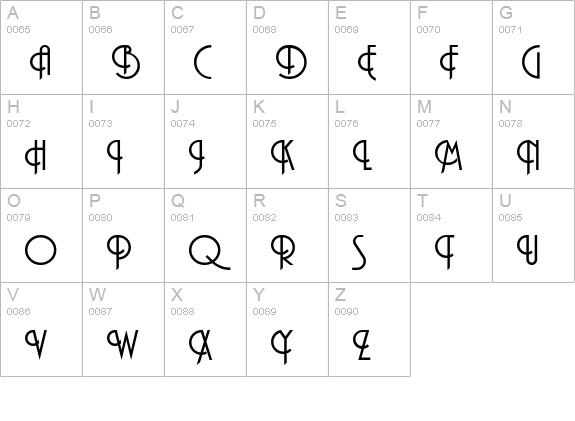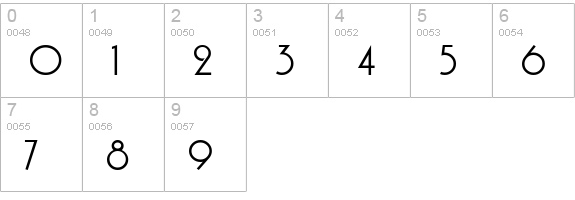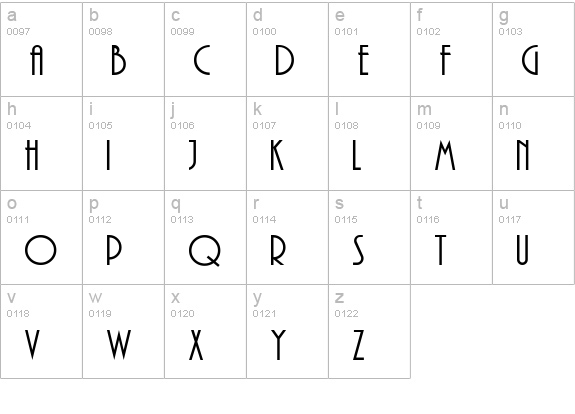
AndesitePlain Font Details
AndesitePlain font is a versatile and modern typeface that exudes sophistication and elegance. With its clean lines and smooth curves, this font is perfect for a wide range of design projects, from branding to editorial design. The clean and simple design of AndesitePlain ensures readability and visual appeal across various platforms. This font is available for free download at FontsMarket.com, making it accessible to designers and creatives looking to elevate their projects with a touch of sophistication. Whether you are working on a website, a print layout, or a branding project, AndesitePlain font is sure to add a touch of modern elegance to your design. Don't miss out on the opportunity to enhance your projects with the stylish AndesitePlain font, available for free download at FontsMarket.com.